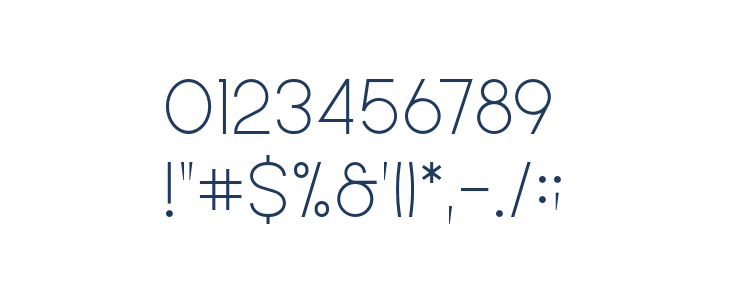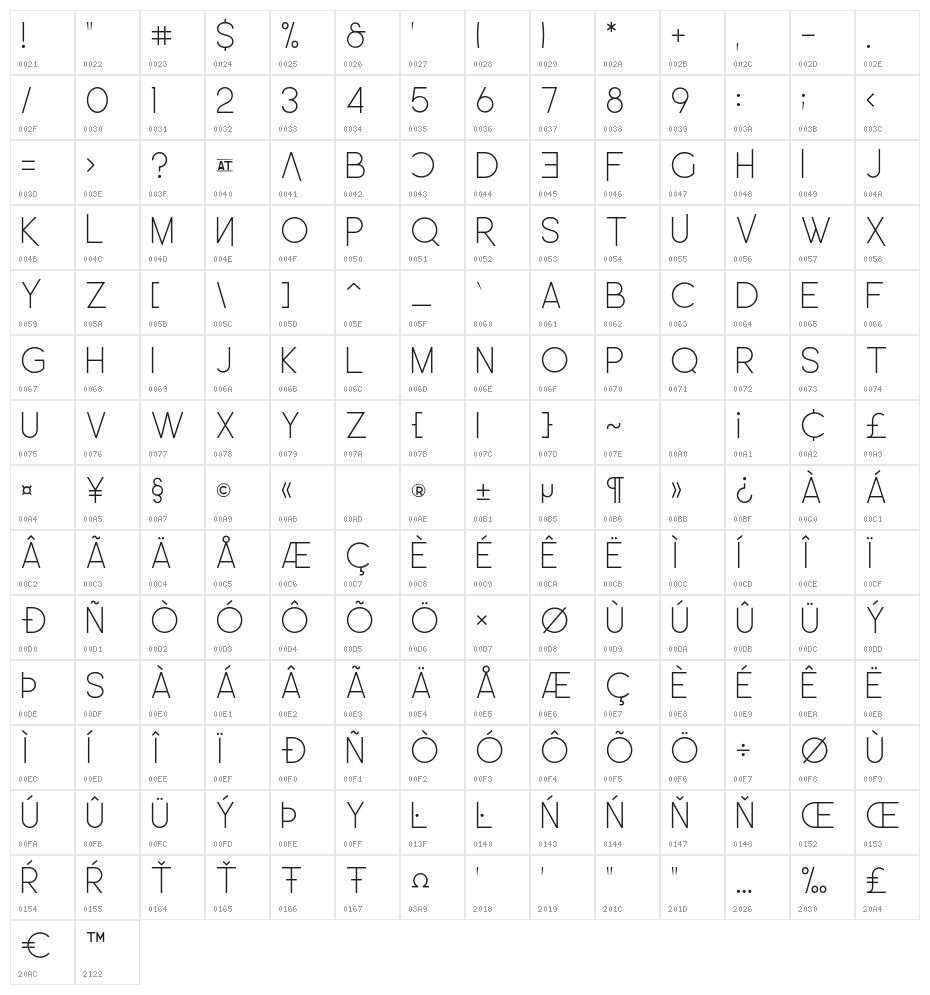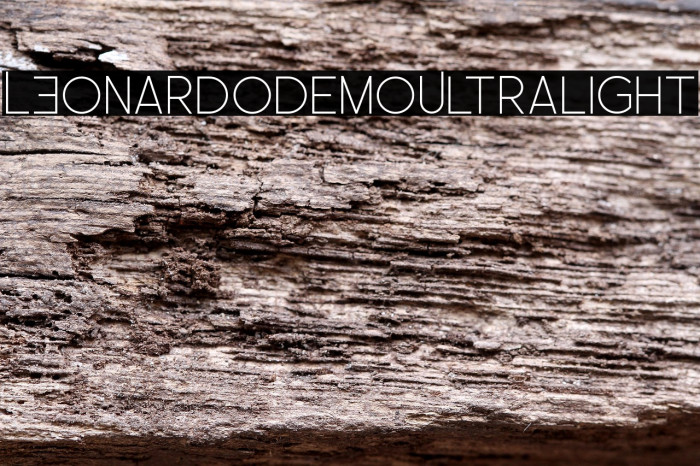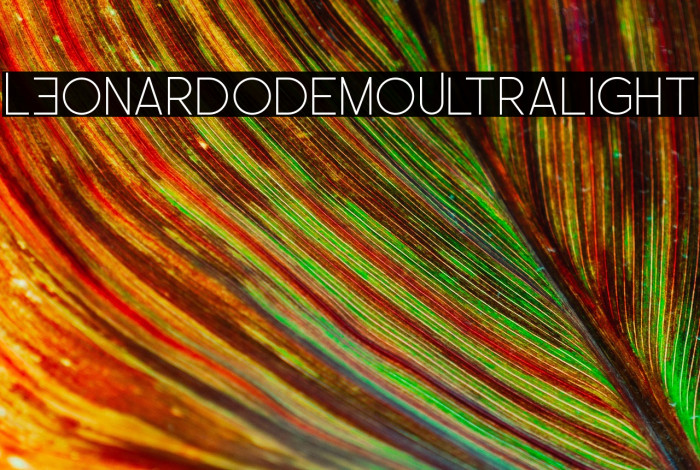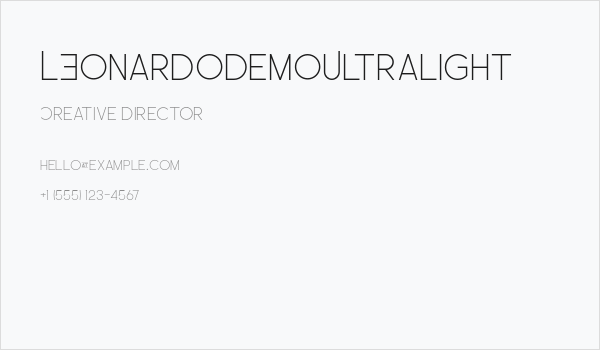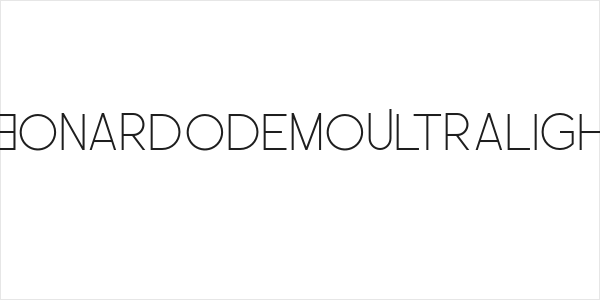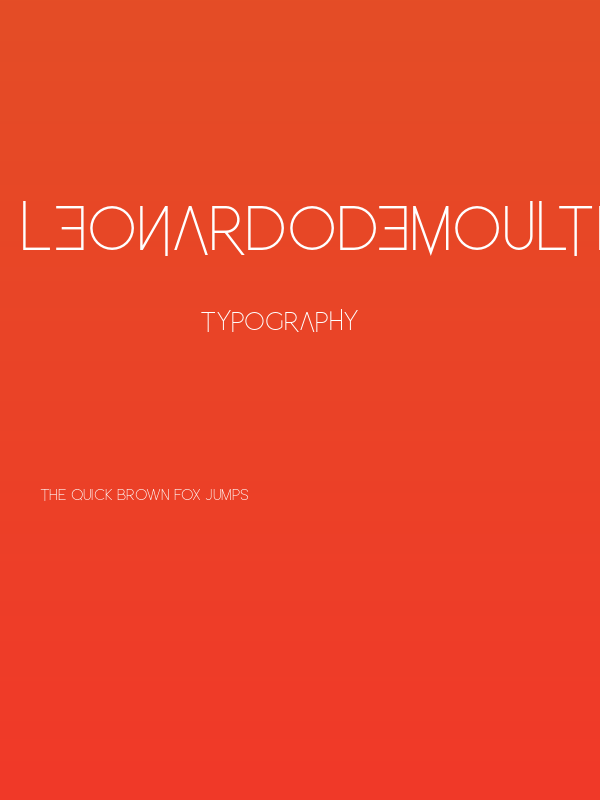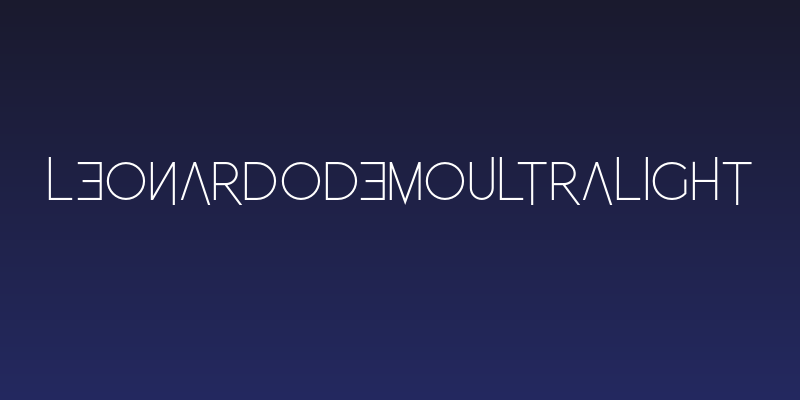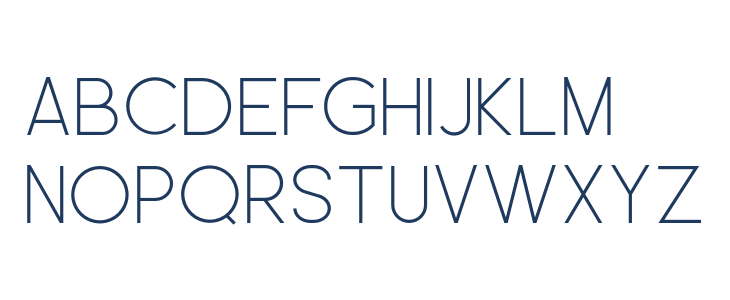
LEonardoDemoUltralight Font
LEonardoDemoUltralight Description
This font features a sleek and modern design with a geometric structure. The characters are crafted with clean lines and a minimalistic approach, emphasizing clarity and simplicity. The uppercase letters exhibit a uniform height, while the lowercase letters maintain a consistent baseline, enhancing readability. The numerals are distinct and align well with the overall style, making them suitable for various applications. Special characters are included, maintaining the font's cohesive look. The thin strokes and open counters contribute to its ultralight appearance, making it ideal for contemporary designs.
| Use Case | Headlines, Logos, Editorials |
| Proposed Projects | Ideal for modern branding, minimalist posters, tech-related designs, and sleek editorial layouts. |